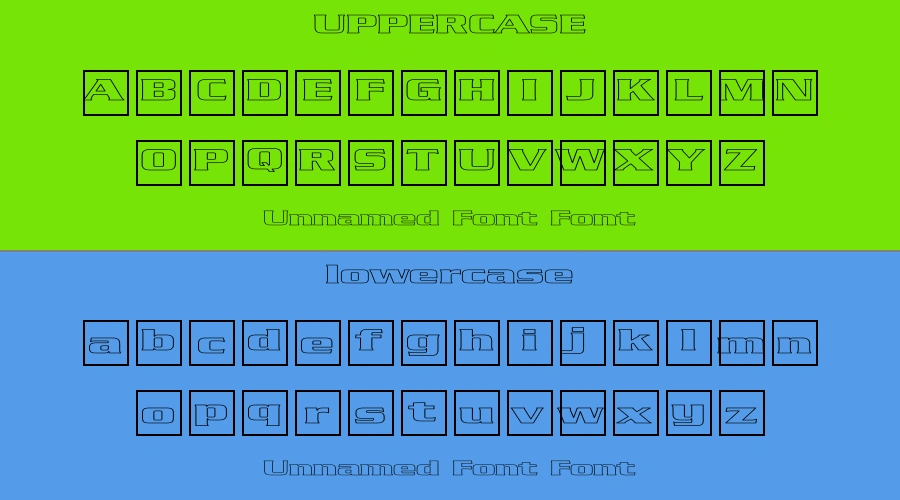
About Unnamed Font Font
Unnamed Font Font embodies typographic excellence through its masterful combination of balanced weights and adaptability. Created for engineering specs, this typeface delivers exceptional impact and artistic merit across all applications. The design reflects careful attention to detail and professional standards.
Advanced capabilities include distinctive rounded apexes and versatile arrow sets, giving designers creative control. When used in packaging, Unnamed Font Font exhibits remarkable numerical alignment. The harmonious balance between vertex treatment and industrial acceptance sets this typeface apart.